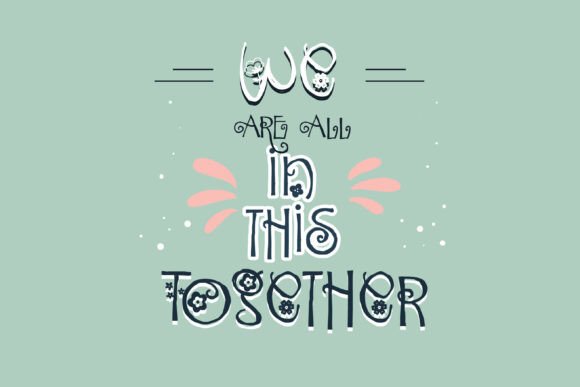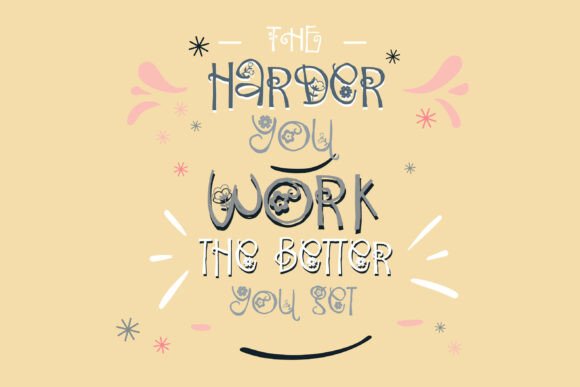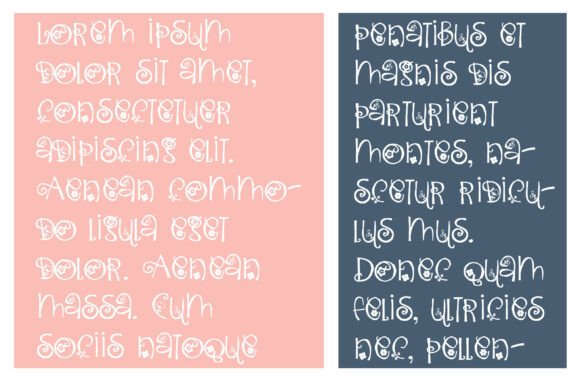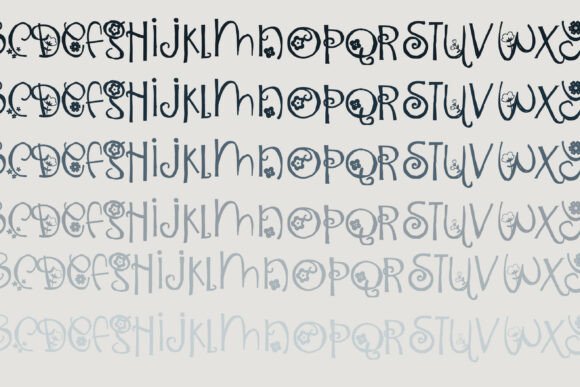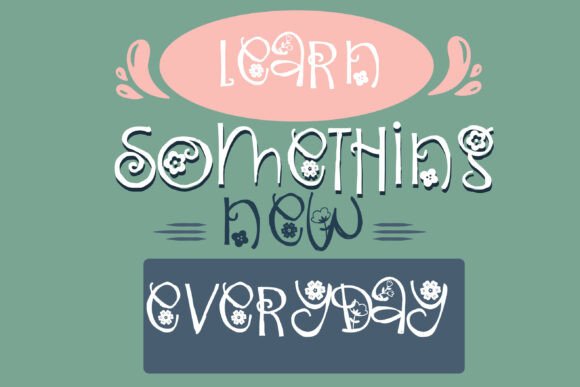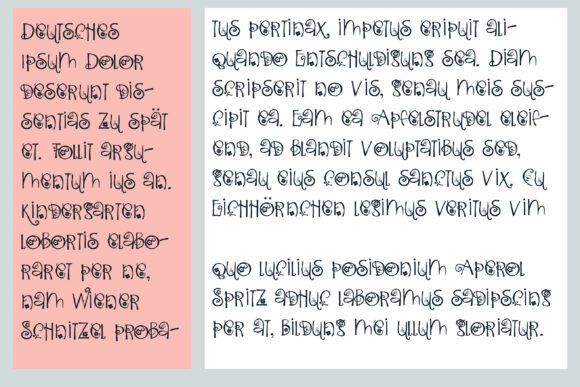
Introduction to Fancy Flowers Family Font
Fancy Flowers: Whimsical Decorative Script Redefine playfulness with Fancy Flowers, a whimsical “floral font” designed for maximum joy.
This typeface features tall, slender stems and integrated flower blooms directly within the letterforms Its bouncy, irregular rhythm and swirling terminals provide a “doodle-chic” aesthetic that feels effortless and imaginative.